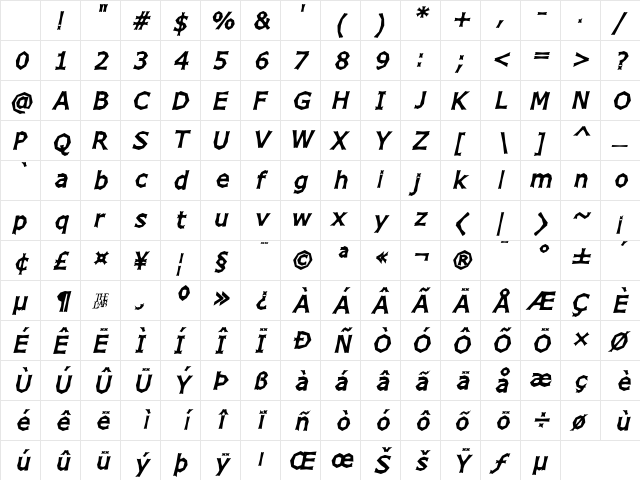
Chizz Wide High Italic Free Font
Chizz Wide High Italic
Designer: Graham Meade & Apostrophe
Design Context for Chizz Wide High
Chizz Wide High is a composed and adaptable typeface that performs quietly and consistently across a wide range of design contexts. The slanted form adds forward momentum and visual energy.
Pro Tip: Use Chizz Wide High for emphasis, pull quotes, and subheadings where its slanted energy can add rhythm to the layout.